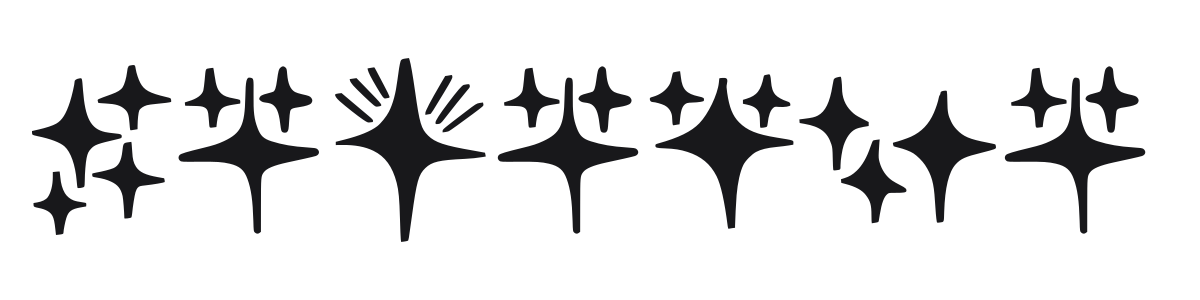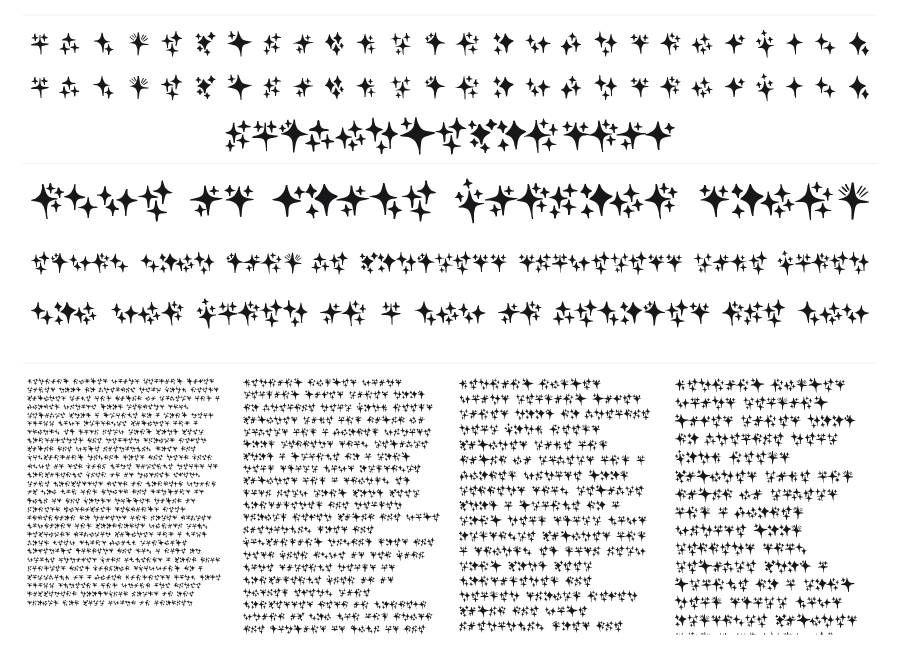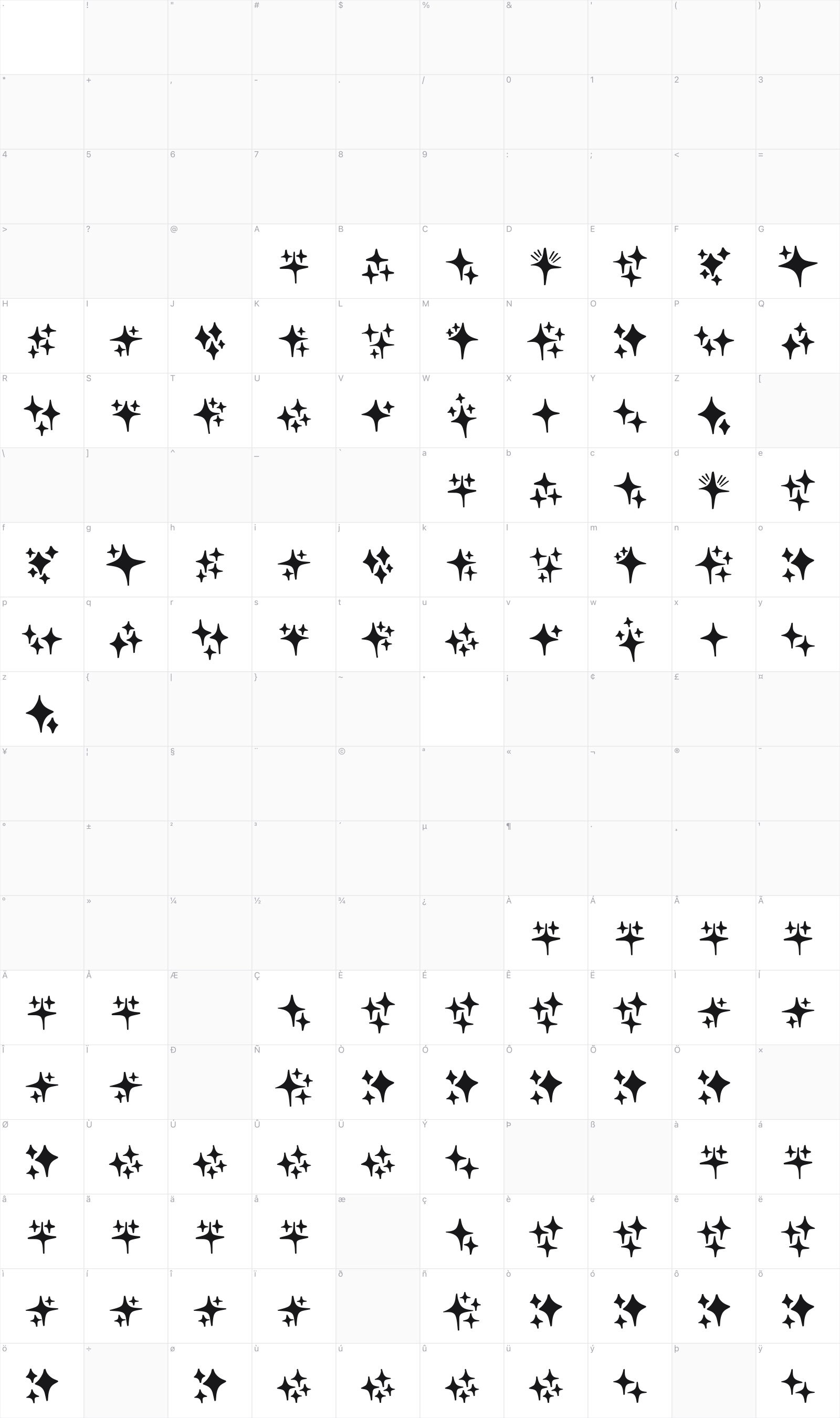
Hadaspa
Hadaspa is a sparkle dingbat font built from a single motif: the four-pointed star, repeated in a range of sizes. Each symbol is sharp, solid, and geometric, making it easy to build glittery borders, dividers, and decorative accents. The varying glyph sizes add rhythm and visual depth when set in sequence.